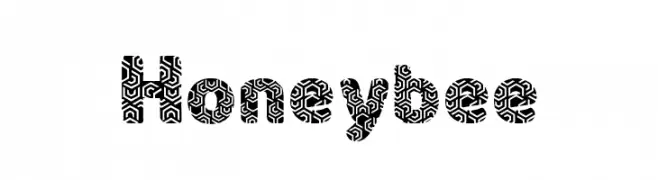
A bold, decorative font with intricate maze-like patterns inside each character.
A bold, geometric font with intricate, maze-like patterns.
A bold, geometric font with intricate patterns and a maze-like appearance.
A geometric, maze-like font inspired by ancient Kufic script.
A bold, geometric font with a maze-like, modern design.
A geometric, maze-like font with bold, interconnected lines and a futuristic aesthetic.
A decorative font with intricate, maze-like geometric patterns.
A bold, geometric outline font with a maze-like design.
A bold, maze-like font with rounded edges and a futuristic, abstract style.
A bold, decorative font with intricate, maze-like patterns.